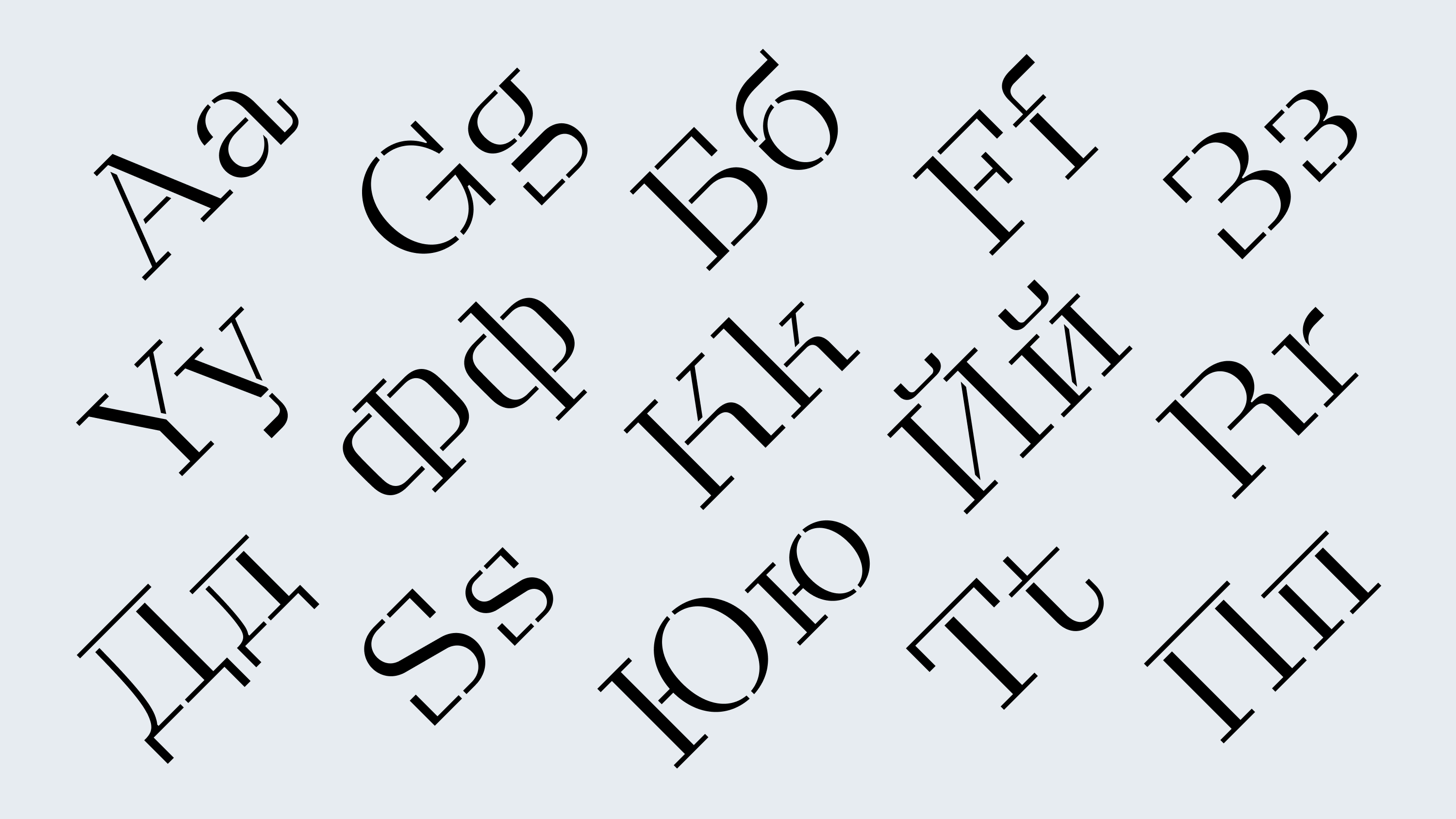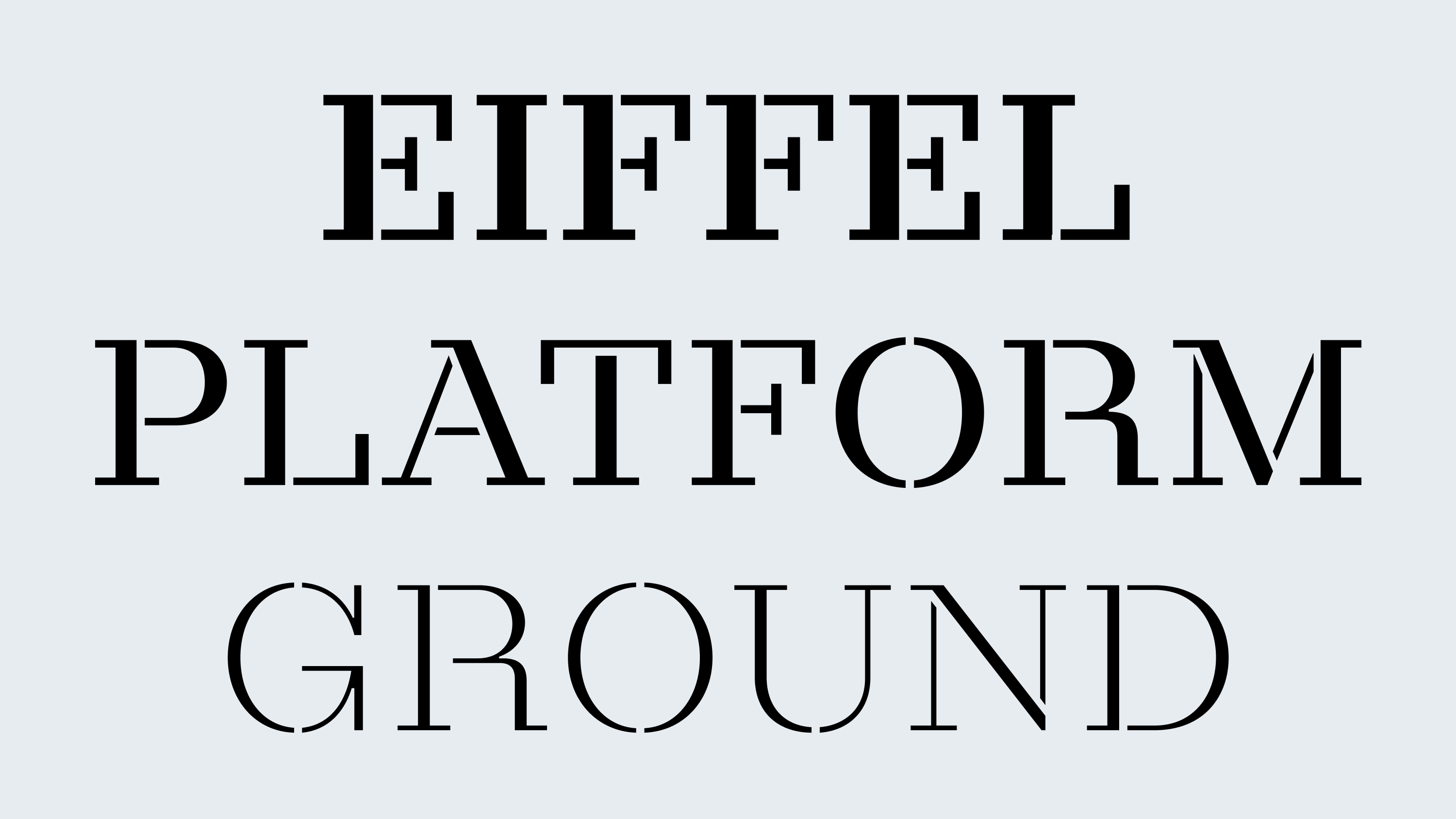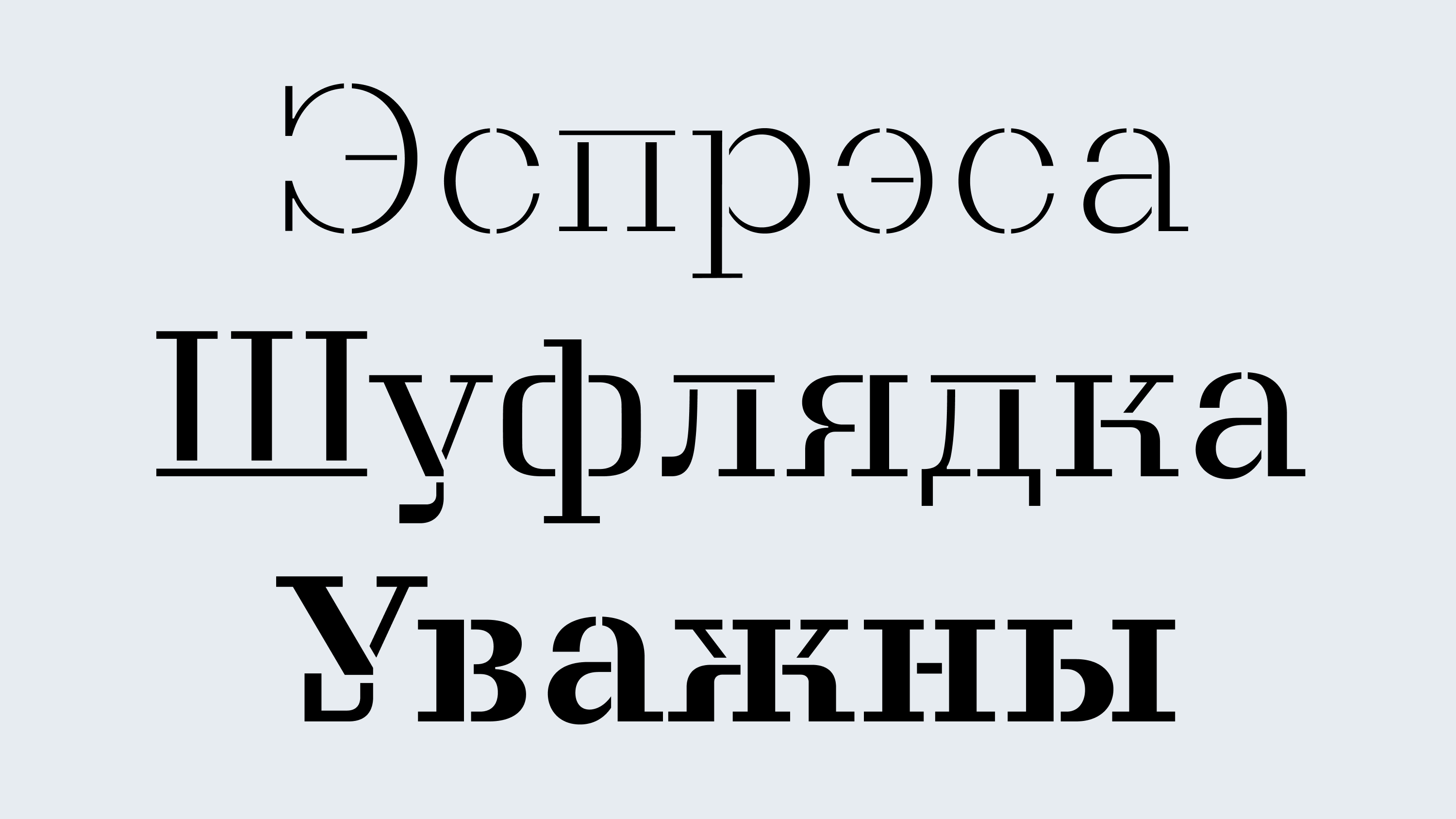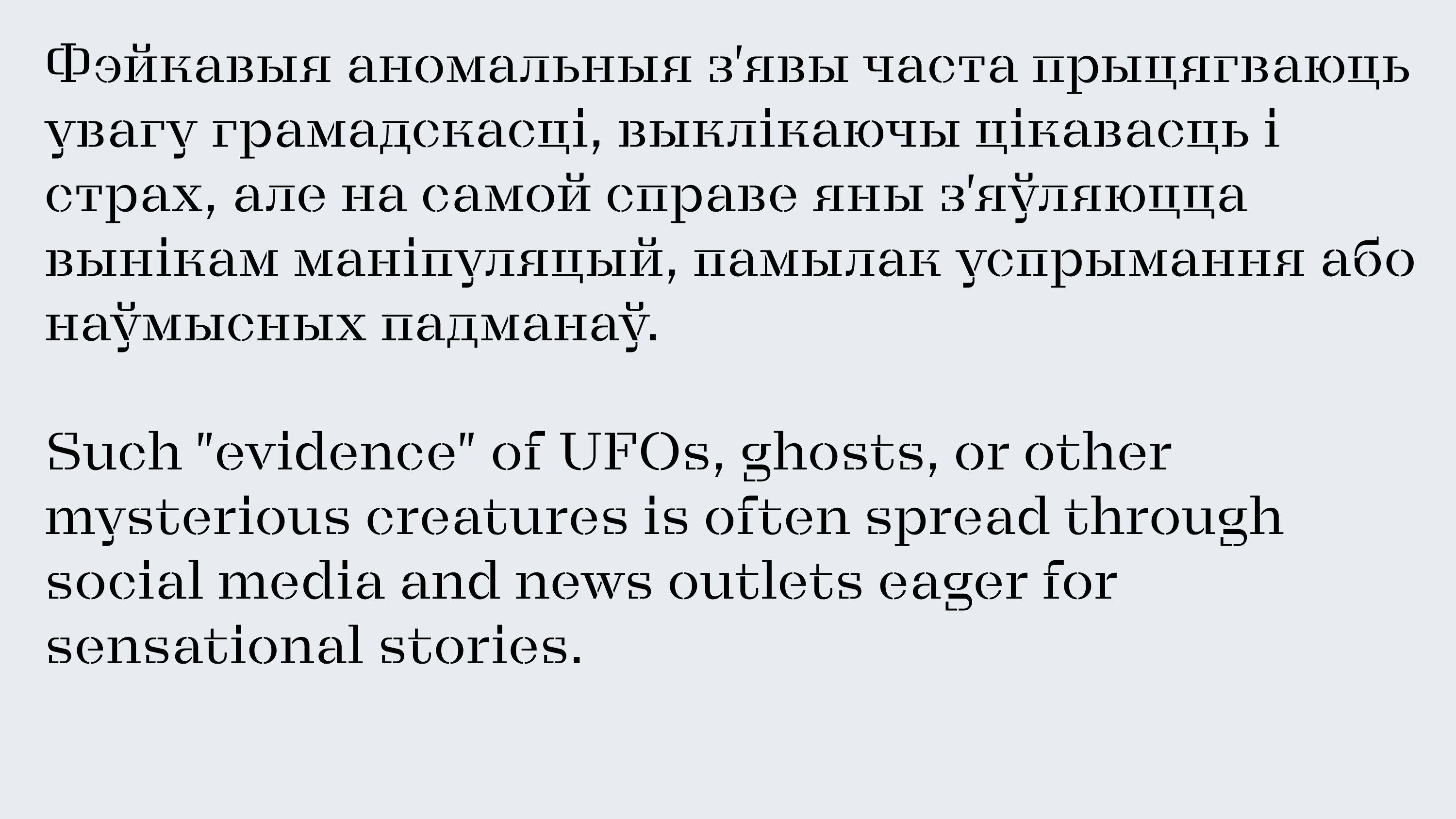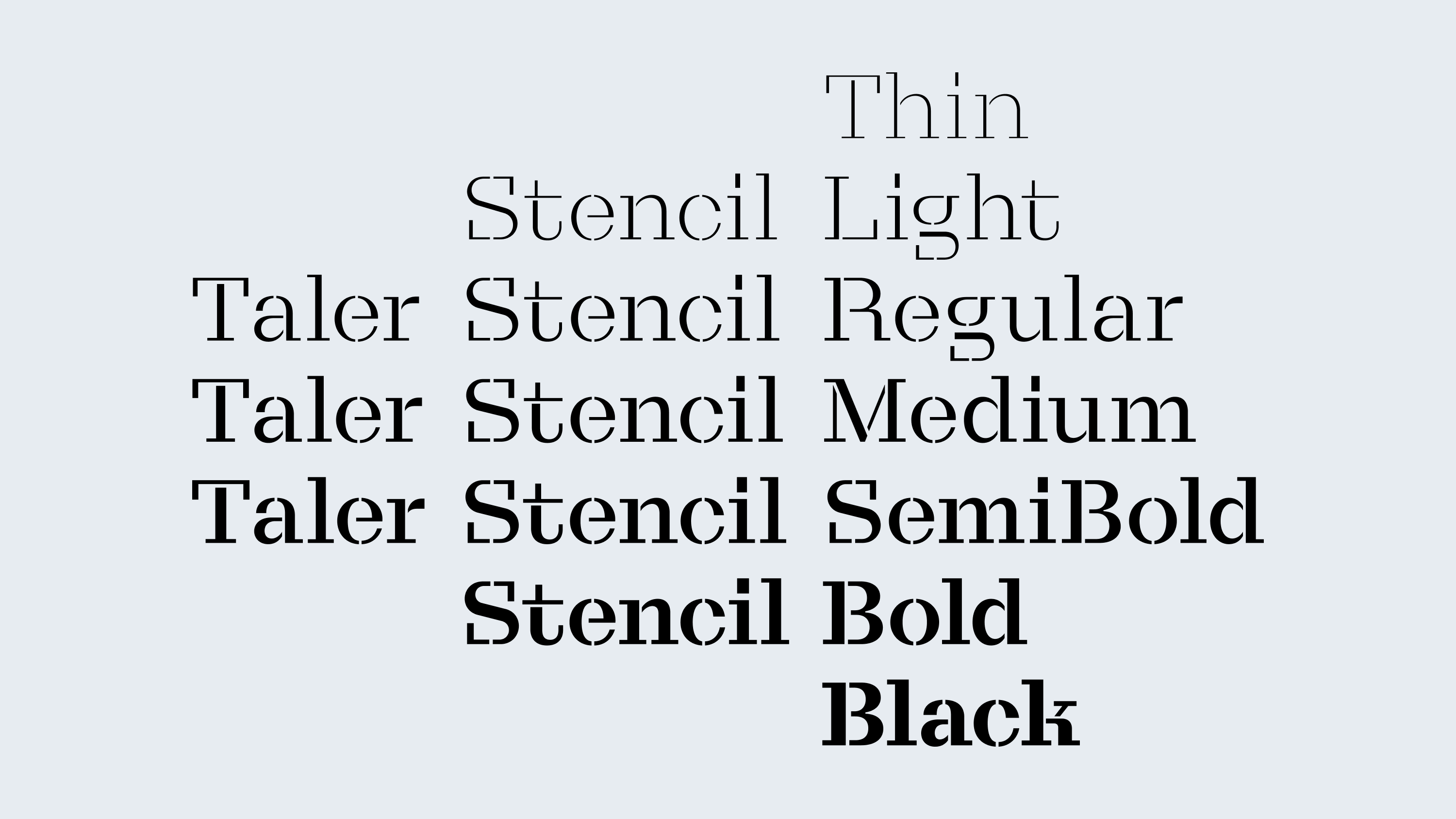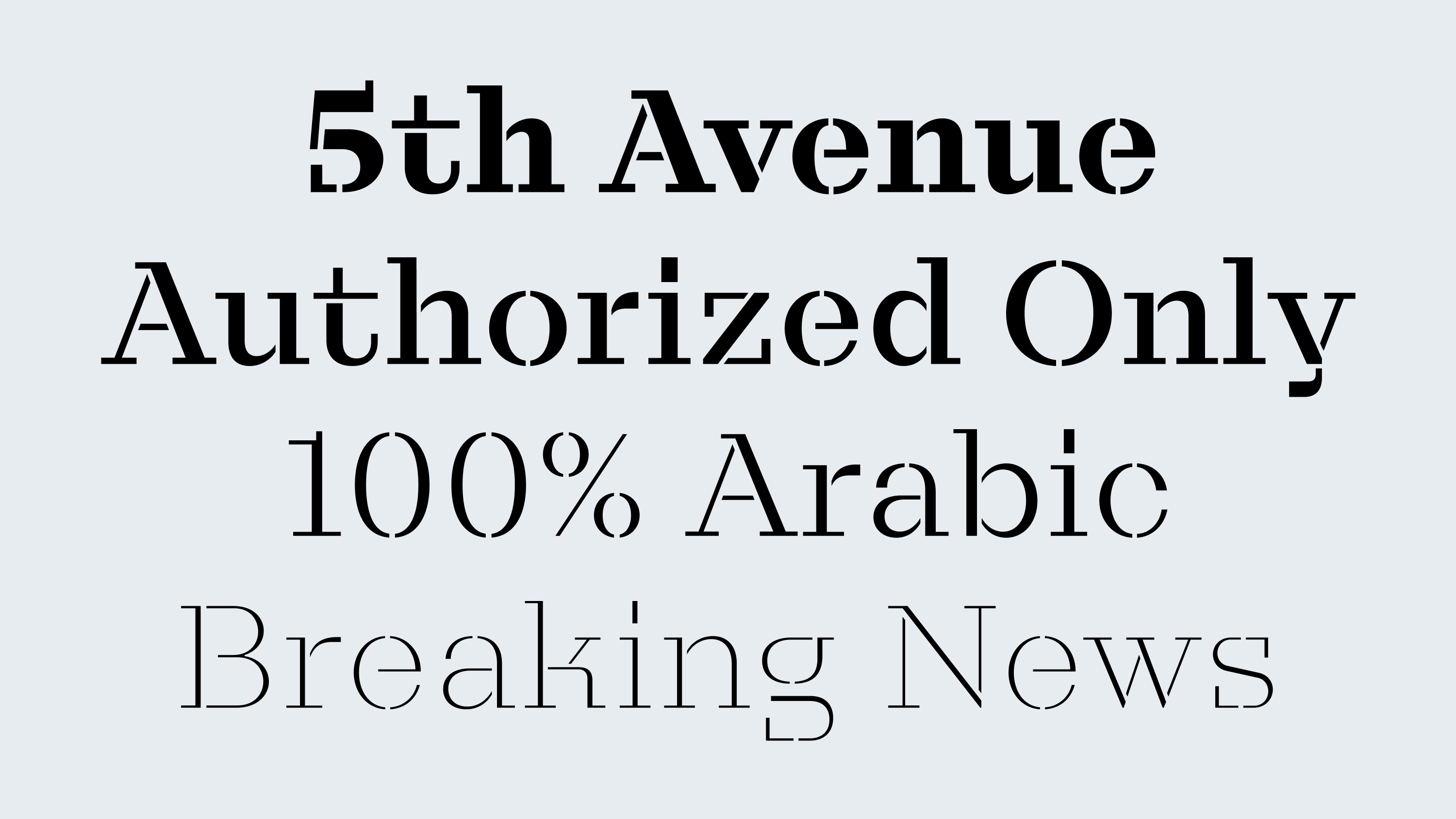
Taler Stencil
Latin, Cyrillic
Stylistic alternates
Case-sensitive forms
Oldstyle/Lining figures
Denis Serebryakov
Taler Stencil is a stencil typeface based on the Taler system. It inherits the construction, proportions, and graphic language of the original: an eclectic serif with rectangular, slightly extended terminals and rigid forms. While fairly elegant, Taler never shied away from its industrial influences — making a stencil version a natural extension of the collection.
The cuts follow the logic of a functional stencil: the shapes remain continuous, even when interrupted. This makes the typeface suitable for mechanical reproduction, while preserving its graphic clarity and distinctive presence.